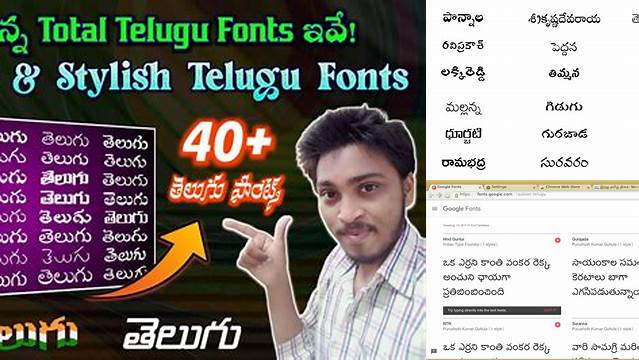
Best Google Telugu Unicode Fonts: Your Ultimate Guide
Hey guys! If you're here, you're probably looking for the best Google Telugu Unicode fonts. Well, you've come to the right place! This guide is all about helping you find the perfect Telugu fonts for your needs, whether you're a writer, designer, or just someone who loves the beautiful Telugu script. We'll dive into the world of Google Telugu Unicode fonts, exploring their features, where to find them, and how to use them effectively. So, buckle up, and let's get started on this exciting journey of Telugu typography!
1. Understanding the Importance of Google Telugu Unicode Fonts
So, why are Google Telugu Unicode fonts so important, you ask? Well, imagine trying to read a book where the letters are all jumbled up or don't appear at all. Frustrating, right? That's the problem that Unicode and specifically these fonts solve. They ensure that the Telugu script, with all its beautiful curves and unique characters, appears correctly on any device, be it your phone, your laptop, or even a digital display. Without proper fonts, the text would be rendered as gibberish or, worse, as question marks and empty boxes. This is because Unicode is a universal character encoding standard, and the fonts are the visual representations of those characters. Google, being the tech giant it is, has played a crucial role in making these fonts freely available and easy to use. This is a huge deal for anyone who wants to write, read, or design in Telugu. It ensures that your words are not only understood but also beautifully displayed, preserving the aesthetic and cultural significance of the language. Therefore, choosing the right Google Telugu Unicode fonts is not just about aesthetics; it's about accessibility, readability, and honoring the language itself. It allows for seamless communication across different platforms and devices, a true testament to the power of technology and the commitment to preserving linguistic diversity. The right fonts can make your content more engaging and appealing. You'll find that well-chosen fonts enhance the overall user experience and provide a professional look, which is essential in various contexts, from writing academic papers to creating visually appealing social media posts. The key is to remember that the font is the voice of the words and helps to convey the intended meaning and tone.
2. The Best Free Google Telugu Fonts You Should Know About
Alright, let's get down to the nitty-gritty and explore some of the best free Google Telugu Unicode fonts out there. First up, we have Roboto. While not exclusively a Telugu font, Roboto supports the Telugu script beautifully. It's a versatile sans-serif font, known for its clean and modern look, making it an excellent choice for both body text and headlines. Next, we have Noto Sans Telugu. Noto Sans is a project by Google designed to support all languages, and the Telugu version is a standout. It offers excellent readability and is specifically crafted to ensure that the characters are displayed correctly. Then there's Lohit Telugu, another great option, which is specifically designed for Telugu. It's known for its clarity and is easy on the eyes, making it a perfect choice for extended reading. All these fonts are freely available on Google Fonts, making them super easy to download and use. Think of it as a treasure trove of options! Each font has its own unique style and is suitable for different purposes. Roboto's clean style is perfect for modern designs, while Noto Sans is great for a wide range of uses, and Lohit offers great readability for text-heavy content. When selecting, consider your specific needs – do you need a font for a website, for a document, or for a design project? Your choice will depend on the font's readability and how it suits the rest of your project. Make sure you explore different font weights and styles to see which ones align best with your visual goals. Don't be afraid to experiment and see how each font renders in various contexts before making a decision. It is all about finding that perfect harmony between style and function. Remember that the best font is one that makes your content easy to read and looks amazing.
2.1. Detailed Analysis of Popular Google Telugu Fonts
Let's take a closer look at the fonts, shall we? Roboto, as mentioned, offers a contemporary feel. The font is often the go-to for a lot of designers and writers because of its versatility. It comes in a variety of weights and styles (bold, italic, etc.), giving you a lot of flexibility when you are crafting your content. Noto Sans Telugu is designed to offer a consistent visual experience across different devices and platforms, making sure your text looks the same no matter where it is viewed. Its main strength lies in its broad coverage of characters and its high legibility. This makes it a great choice for anyone looking for reliability. Lastly, we have Lohit Telugu. This font is specifically designed for the Telugu script. One of the key strengths of Lohit is its simplicity and its focus on readability. It is very easy to distinguish the different characters, which is crucial, especially in long-form content or for readers who are not fluent in Telugu. When you are picking your font, consider what the intended audience is and where the content will be used. The goal is always to provide the best possible reading experience, keeping in mind both the visual aesthetics and the legibility of the text. All the fonts have their own strengths and weaknesses. Therefore, it's about finding the best option that fits the needs of the project.
3. Why Unicode Matters for Telugu Typography
Alright, let's get into why Unicode is so important for Telugu typography. Unicode is essentially the universal code for characters. Before Unicode, there were different character encodings, which meant that the Telugu script might appear differently, or not at all, on different devices or platforms. Imagine sending a message and the recipient seeing only question marks or gibberish. That is the problem Unicode solves. It assigns a unique code to every character, allowing computers worldwide to consistently display Telugu text. This ensures that the Telugu script, with its unique and beautiful characters, is rendered correctly across all devices, from smartphones to laptops to websites. Think of it like a universal translator for the digital world. Without Unicode, the digital preservation and widespread dissemination of the Telugu language would be severely limited. The ability to type, read, and share content in Telugu would be a huge mess! With Unicode, you can confidently write and share your words knowing that they will be understood by anyone, anywhere, regardless of their device or software. Google Telugu Unicode fonts work together to make this a reality. The fonts are the visual component, and Unicode provides the foundation for correct rendering. Unicode support has helped Telugu speakers embrace technology without compromising their linguistic identity. It is now easier than ever to engage with the language digitally, whether you're writing emails, creating social media posts, or designing graphics.
3.1. The Role of Unicode in Rendering Telugu Characters
The role of Unicode is central to rendering Telugu characters properly. Without Unicode, Telugu text would be a jumbled mess of symbols and garbled characters. It assigns unique codes to each character, which ensures consistency across different devices, operating systems, and applications. Consider how the Telugu alphabet is composed, with its intricate combinations of vowels, consonants, and matras (vowel signs). The presence of these intricate details means that the correct display is crucial. Unicode handles these complex combinations, while the fonts provide the visual rendering of these characters. So, when you are typing in Telugu, you aren't just typing individual letters. You are constructing entire words and phrases using a system of codes that Unicode defines. The fonts then translate these codes into the actual visual shapes you see. It's a collaboration between the digital code (Unicode) and the visual design (font). In essence, Unicode acts as the backbone, ensuring that the correct characters are available, and the fonts give them shape. Without this system, Telugu writing would be severely limited in the digital world. Unicode allows for standardization. You can guarantee that what you write will be seen by everyone, regardless of their platform or device. Google Telugu Unicode fonts depend on this foundation to display the beautiful script. If you want your text to appear correctly, the proper Unicode support is a must.
3.2. Understanding Character Encoding and Telugu Script
Character encoding is the technical backbone that supports the Telugu script. Every character in the Telugu alphabet, from vowels and consonants to the special symbols, has a unique numeric code assigned to it. This is how computers understand and process the language. The key point is that each letter gets a specific code, so when you hit a key on your keyboard, the computer knows which character to display. The Telugu script, with its intricate system of consonants, vowels, and matras, relies heavily on this. Unicode, the most widely used character encoding system, is designed to accommodate all languages. It provides the framework to represent all the characters in the Telugu alphabet. This standardization ensures that the text is displayed correctly on different systems. When you are choosing Google Telugu Unicode fonts, you're choosing the visual representation of these encoded characters. This is a critical part of the process. The font ensures that these characters are rendered in an appropriate and readable style. The ability to properly encode and render the Telugu script is vital for both digital communication and preservation of the language. The fonts, when combined with proper character encoding, can help showcase the language effectively. Without proper encoding, the language would be a jumbled mess. This is why Unicode and the fonts are so important.
4. Font Selection Tips for Telugu Content
Choosing the right Google Telugu Unicode fonts can make or break your content. The best approach is to always start with readability. Your font should be easy on the eyes and the design should be consistent across all devices. A font that looks great on your desktop might not work well on a mobile screen. Make sure you choose a font that provides a good user experience on all devices. Also, consider the context of your content. Is it for a website, a document, or a design project? For body text, a clean and simple font like Noto Sans Telugu or Lohit Telugu is usually a safe bet, as they are designed for readability. For headlines, you could experiment with slightly more stylized fonts, but always ensure they are easy to read. Then, consider your target audience. Are you writing for a formal or informal audience? Your font choice should reflect the tone and style of your content. The font selection should always support your overall message. When picking your font, it is important to remember that you are representing the beauty of the Telugu language. Choose a font that you love and that makes the language accessible to your audience.
4.1. Readability and Legibility Considerations
Readability and legibility are paramount when selecting Google Telugu Unicode fonts. Readability refers to how easy it is to read large blocks of text, while legibility is how easily individual characters are distinguished. For long-form content, like articles or books, a font with good readability is essential. Look for fonts with clear letterforms, ample spacing between characters, and a comfortable x-height (the height of the lowercase letters). Noto Sans Telugu and Lohit Telugu are great examples of fonts designed for excellent readability. Legibility becomes crucial for short bursts of text, such as headlines or captions. The key is to ensure that the font clearly distinguishes between characters, even at smaller sizes. Avoid fonts that are too stylized or have complex letterforms if legibility is a priority. Also, consider the contrast between the font and the background. A high contrast (e.g., dark text on a light background) improves readability. The font must be readable in all contexts, and the best approach is to test it in different scenarios before making a decision. The goal is to make the reading experience as smooth and comfortable as possible. Good readability and legibility will help the reader absorb the information more easily, which will improve engagement and create a more positive impression.
4.2. Choosing Fonts for Different Telugu Content Types
Different content types require different font choices. For body text in articles, consider fonts that prioritize readability, such as Noto Sans Telugu or Lohit Telugu. These fonts are designed to ensure comfort, which is essential for extended reading. For headlines and titles, you can choose more visually striking fonts to capture attention, but ensure they are still legible. The key is to balance style and readability. For websites, consider the font's performance and how it renders across various devices. You want a font that loads quickly and looks good on mobile screens. Ensure the font you pick is web-safe and supports the characters you need. For printed materials like books and brochures, you have more flexibility. The best approach is to test your fonts by printing a sample page and evaluating its impact. For social media posts, the font should be visually appealing and grab attention quickly. Remember, the content type and the context of your work should always be a consideration. By keeping these points in mind, you can make the best font choices. For each content type, you need to find a font that fits the overall style, tone, and message of your content. Experiment and see which fonts align best with your goals. Then, make your choice.
5. Integrating Google Telugu Fonts into Your Projects
So, how do you integrate these amazing Google Telugu Unicode fonts into your projects? It's pretty straightforward, guys! For web projects, the easiest way is to use the @import
or <link>
method. Just copy the code from Google Fonts and paste it into the <head>
section of your HTML document. Then, specify the font in your CSS. This way, the font is loaded directly from Google Fonts. Alternatively, you can download the font files and host them yourself. This gives you more control, but it requires a bit more technical setup. Another option is to embed the fonts into your design software, like Adobe Photoshop or Canva. Most design tools allow you to import fonts from your system. For document creation, such as in Microsoft Word or Google Docs, after you download and install the font, it will appear in your font selection dropdown. Select the font you've installed to apply it to your text. When designing graphics or presentations, it is the same concept. Make sure the font is compatible with your design software. The steps are similar across different platforms. Always make sure to test your integration. The goal is to guarantee the correct rendering of Telugu characters. By integrating these steps into your project, you can make sure the font appears correctly on all devices and systems. You want a seamless display of the language.
5.1. Using Google Fonts in Web Design
Using Google Telugu Unicode fonts in web design can greatly enhance the look and feel of your site. The simplest approach is to use the @import
method. Go to Google Fonts, select the fonts you like, and copy the @import
code snippet. Paste this into the <head>
section of your CSS file. You can also use the <link>
method. Copy the <link>
tag and paste it into your HTML's <head>
section. Then, in your CSS, specify the font family for your desired elements. For example, font-family: 'Roboto', sans-serif;
Remember to include a fallback font (like sans-serif
) for situations where the Google font might not load. For performance, consider using a font loading strategy. This can affect how your site loads. The goal is to make the site look good and load fast. Optimizing font loading can greatly affect performance. Also, when you are picking your font, consider the overall design of your website. Does the font align with your brand's style? Does the font complement other visual elements on the site? Make sure your font choices are consistent across all pages of your website. The goal is to create a unified look that helps users navigate and engage with your content. Make sure the font looks good on all devices. Check how it appears on different screen sizes and resolutions. Also, you can customize the font styles to make them perfectly match your design. Use your knowledge to refine your project.
5.2. Utilizing Telugu Fonts in Document Creation and Design Software
To use Google Telugu Unicode fonts in document creation and design software, you must first download and install the font files. Go to Google Fonts, select the fonts you want, and download the .ttf
files. Then, install the fonts on your system. The exact process depends on your operating system. For Windows, right-click the font files and choose "Install." For macOS, double-click the font files and click "Install Font." After installation, open your document creation software, such as Microsoft Word or Google Docs. The installed fonts should appear in your font selection dropdown. Select the font you installed to apply it to your text. In design software like Adobe Photoshop or Canva, the process is similar. After installing, the fonts will be available in the font selection menus. Select the font and start typing your text. Before you start, consider your content. Make sure your font choice fits with the overall style and theme of your work. Test your design by exporting it and seeing how it looks. Make sure that all your characters display correctly. The most important goal is to choose a font that complements the text and enhances the overall visual appeal of your documents and designs. You can select a font that represents your brand and adds an aesthetic touch to your work.
6. Troubleshooting Common Font Issues
Even with the best fonts, you might face some issues. Let's explore how to troubleshoot them. One common problem is missing or incorrect character display. If this happens, make sure that the font you're using fully supports the Telugu script. Check if the font has all the necessary glyphs for Telugu. Make sure you have selected the right Google Telugu Unicode fonts. Also, verify that your operating system and software are up-to-date. Outdated software might not correctly render newer fonts. Sometimes, font files get corrupted during download. Re-download and reinstall the font. If you're using the font in a web project, make sure that the font files are correctly linked in your CSS. Clear your browser cache and refresh the page. If you're still having trouble, check the font's documentation or online forums. Other users might have faced the same issues. Another frequent issue is that your text might look distorted or jumbled up. This is because of conflicts with other fonts, or the font itself isn't correctly installed. Make sure there are no conflicts between your fonts. If you are using the font in a design software, make sure the software supports Unicode fonts. Also, adjust the font size and spacing to optimize readability. The key is to systematically check each step to find the root of the problem. The process involves identifying the issues and finding solutions.
6.1. Resolving Missing Character Glyphs
Missing character glyphs can be frustrating. It means some Telugu characters aren't displaying correctly. Make sure the Google Telugu Unicode fonts you've selected fully support the Telugu script. Check the font's documentation or website. Download different font versions. If you're working with a website, verify that the font files are correctly linked in your CSS and that the font is being applied to the correct elements. Clear your browser cache and refresh the page. In some cases, the issue might be with the software or operating system. Update your software to the latest version. If you're still experiencing problems, try to identify the specific characters that are missing. Then, you can check the character map of the font to see if those characters are supported. You can also try to use a different font known for supporting the Telugu script. The goal is to ensure that all characters are displayed correctly. Another cause of this issue could be encoding problems. Be sure your text editor or software uses UTF-8 encoding. If you are using a content management system, make sure that your database and settings are configured correctly to handle Unicode characters. If you try different solutions, you will be able to fix your problem.
6.2. Fixing Rendering and Display Issues
Rendering and display issues can make your Telugu text look distorted or illegible. One of the first things to check is to make sure that the font is installed and applied correctly. Verify the font's size, weight, and style to make sure they are appropriate for your content. Check if there are any conflicts with other fonts. In some cases, the issue might be with the rendering engine of the software. Make sure the software is up-to-date. Make sure the font is correctly linked to the CSS. Clear your browser cache and refresh the page. If you are using the font in design software, make sure that your software supports Unicode fonts. Then, review your text and make sure that there are no formatting errors. Adjust the font size, spacing, and line height to improve readability. The goal is to provide a smooth and visually appealing reading experience. When you check the elements and the source of the problem, you will be able to find a solution. Use the different solutions to make sure your text looks its best, and the characters are displayed in a readable way. Then, the text can convey the meaning.
7. The Future of Telugu Fonts and Technology
What does the future hold for Google Telugu Unicode fonts and technology? The trends are exciting, guys. We're seeing a continued focus on improving font design and user experience. The developments focus on enhancing readability and aesthetics. As technology advances, we can expect more sophisticated fonts with better support for complex scripts. Machine learning and AI might play a role in font creation and customization. These tools can help designers create and optimize fonts more efficiently. In addition, there's a growing emphasis on accessibility. Fonts will be designed to be more inclusive. This involves ensuring that all users can access and enjoy Telugu content. With the emergence of new technologies and design trends, the focus will be on creating fonts that adapt to all digital platforms. Furthermore, the open-source nature of Google Fonts, and the contributions of the community, is important. It ensures the continued development and enhancement of Telugu fonts. The development of fonts will be collaborative, and the goal is to create the best fonts.
7.1. Emerging Trends in Telugu Typography
Emerging trends in Telugu typography show a dynamic landscape. There is a strong emphasis on creating fonts that are both modern and culturally relevant. Designers are exploring the traditional aesthetics of the Telugu script, while incorporating modern design principles. Expect to see more font designs that take advantage of technological advances. This includes new methods for optimizing font rendering on various devices. With the rise of mobile devices, responsiveness and readability are crucial. Designers are focusing on designing Telugu fonts that are easy to read on smaller screens. The goal is to improve accessibility. Another trend is the use of variable fonts. Variable fonts allow designers to create different font weights and styles. This also gives you more flexibility in your designs. There is an increased focus on customization, which allows users to have more control over the appearance of the font. This will allow for a more customized and personalized experience. The best approach is to keep learning about Telugu typography. The world of typography is ever-changing. By understanding the trends, you can make the best decisions.
7.2. The Role of Google and Community in Font Development
Google plays a significant role in the evolution of Google Telugu Unicode fonts. Google provides platforms like Google Fonts, where developers can get Telugu fonts for free. Google encourages the development of open-source fonts, supporting the growth of the Telugu language online. Google is essential for making these fonts available to a wide audience. Beyond Google, the community's role is also significant. Designers, developers, and linguists are working together to improve Telugu fonts. The community offers feedback and suggestions, driving the development of new fonts. The community also ensures that the fonts remain accessible to everyone. This community approach fosters collaboration and innovation. The feedback from the community is critical. The collaborative effort improves the fonts' quality and ensures they meet user needs. The open-source nature of these fonts also supports contributions from a broad range of experts. The goal is to make great Telugu fonts. By leveraging the community's collective knowledge and resources, the future of Telugu typography looks very promising. This is important for language preservation.